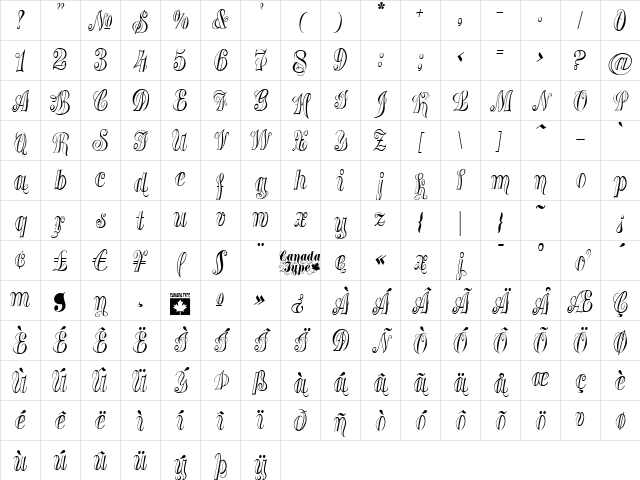
Treasury Silver Alt Regular
Foundry: Canada Type
Design Context for Treasury Silver Alt
Treasury Silver Alt is a composed and adaptable typeface that performs quietly and consistently across a wide range of design contexts.